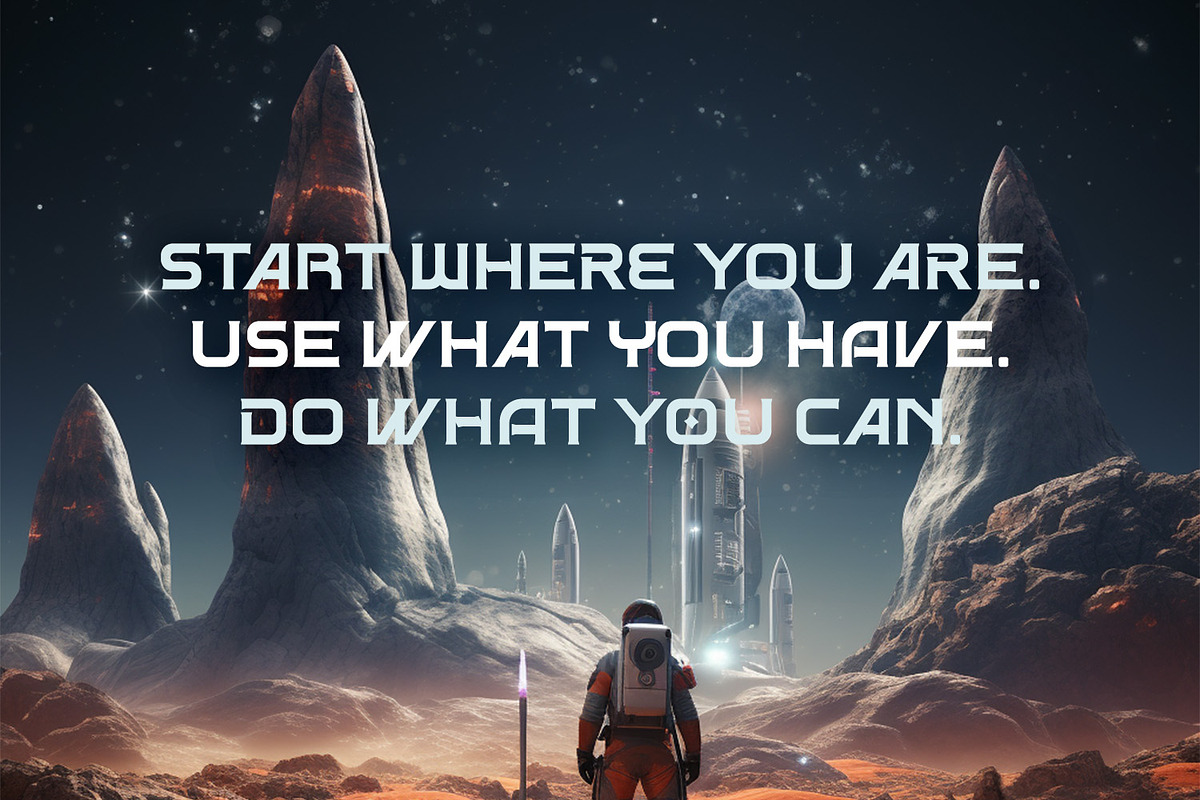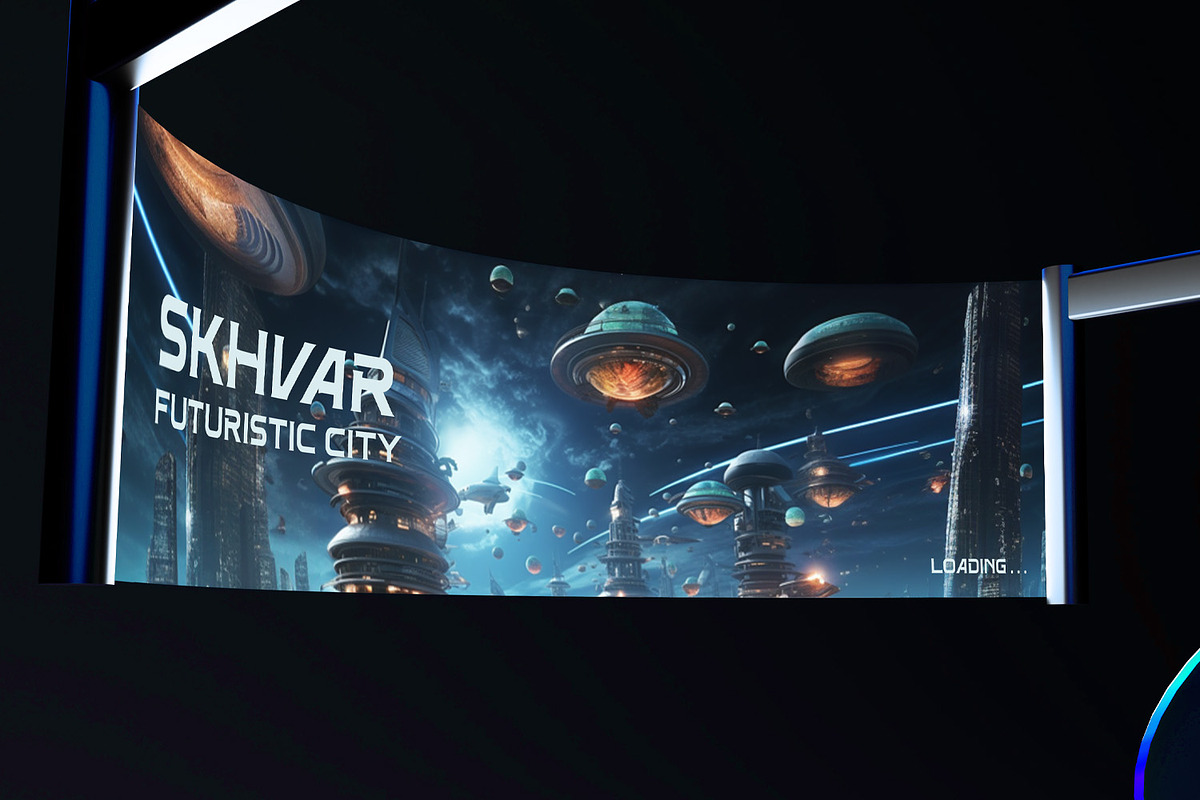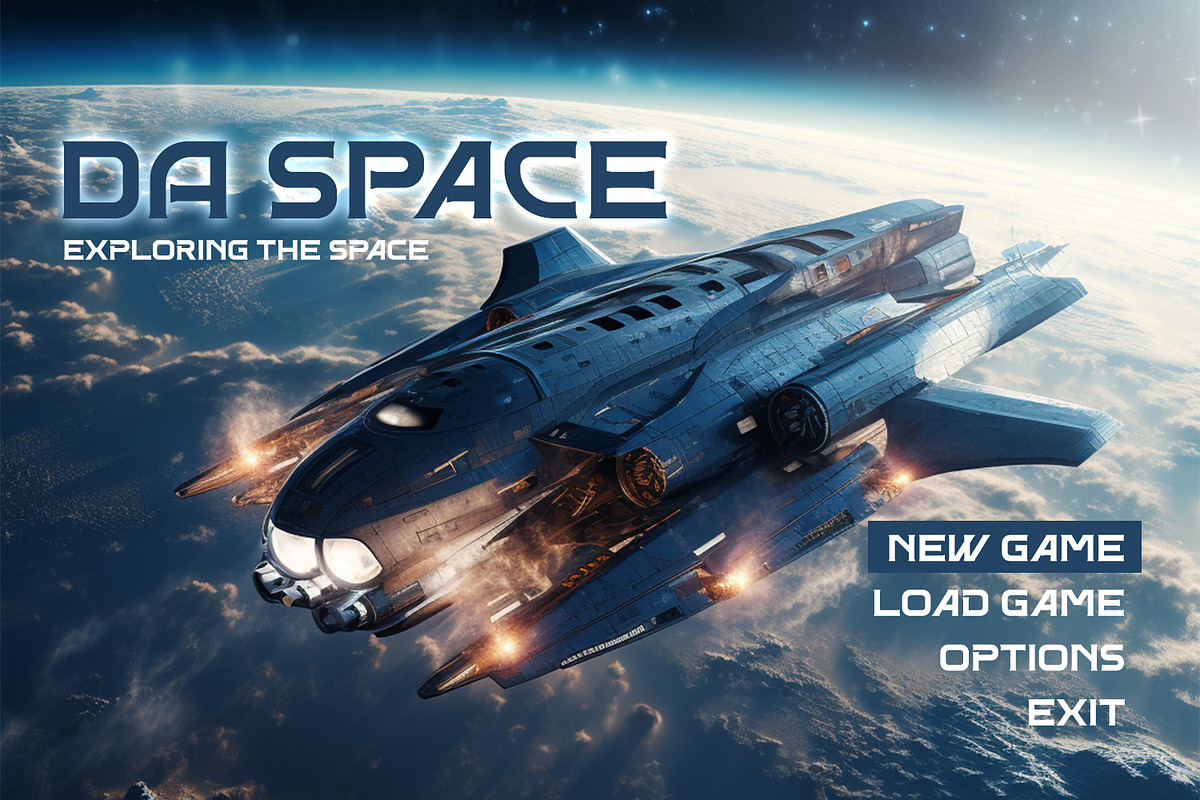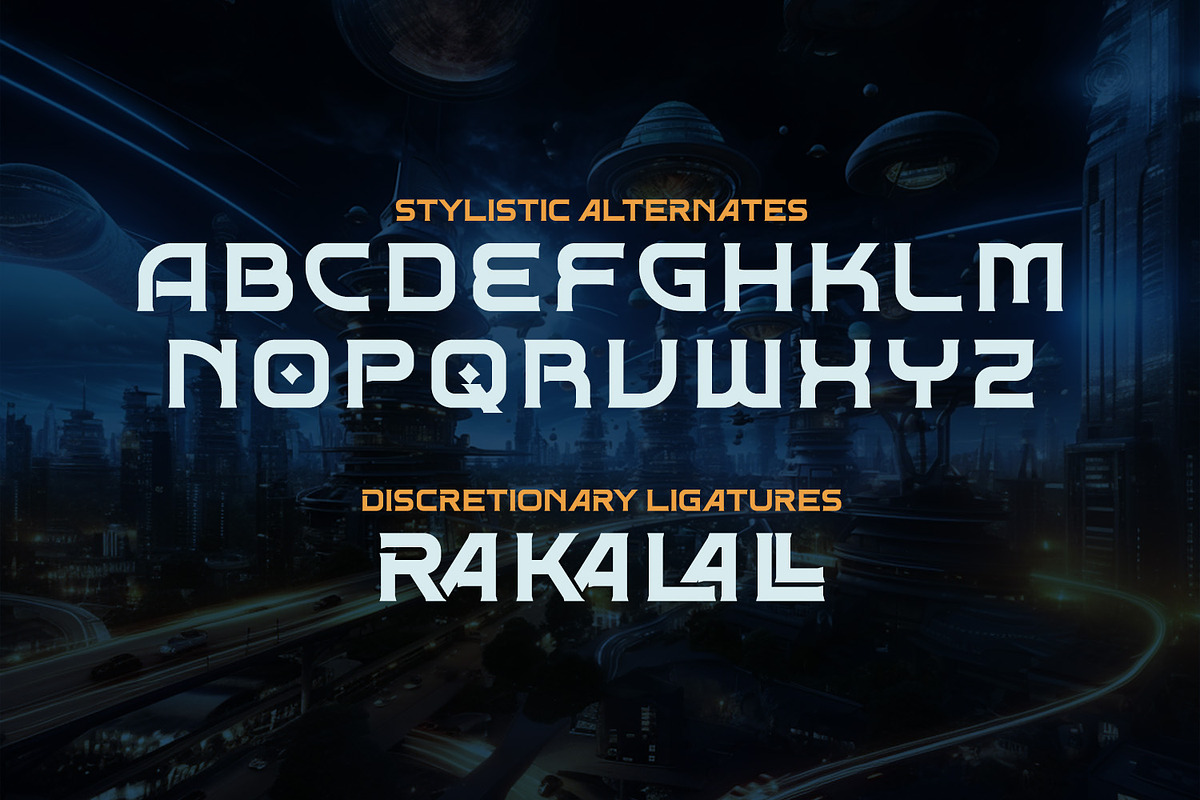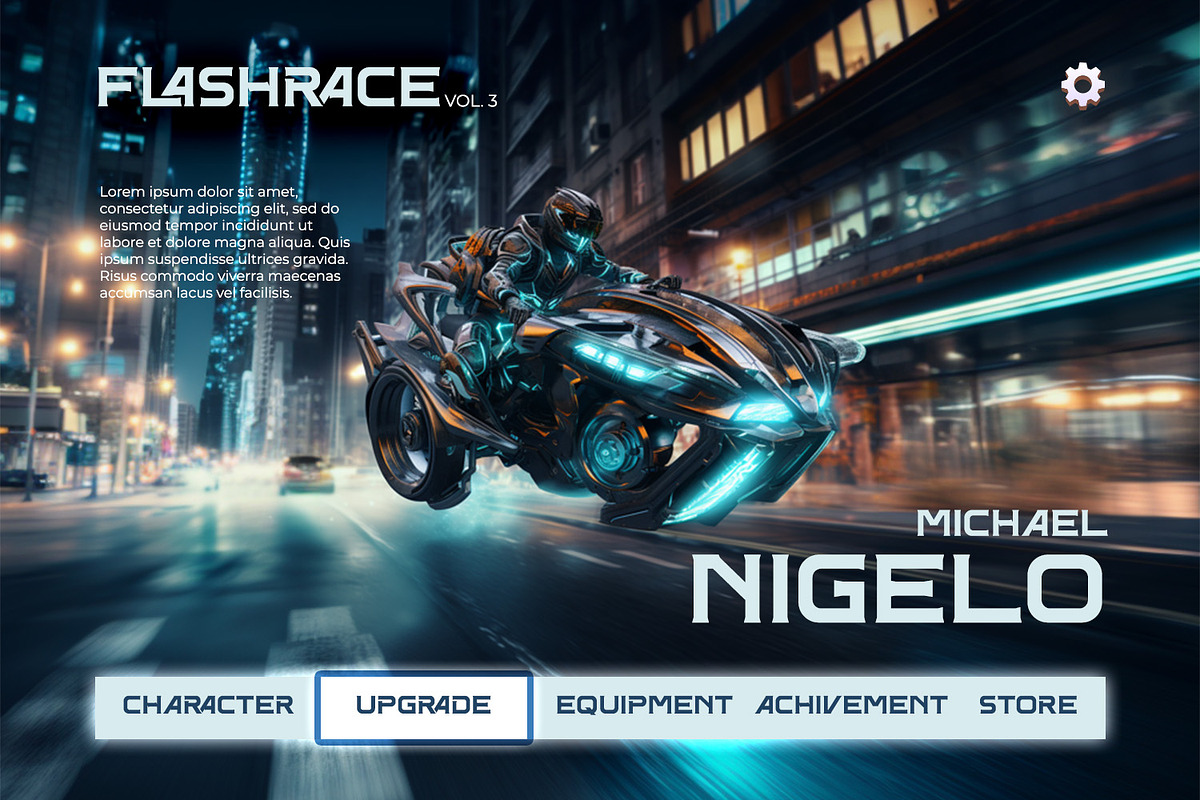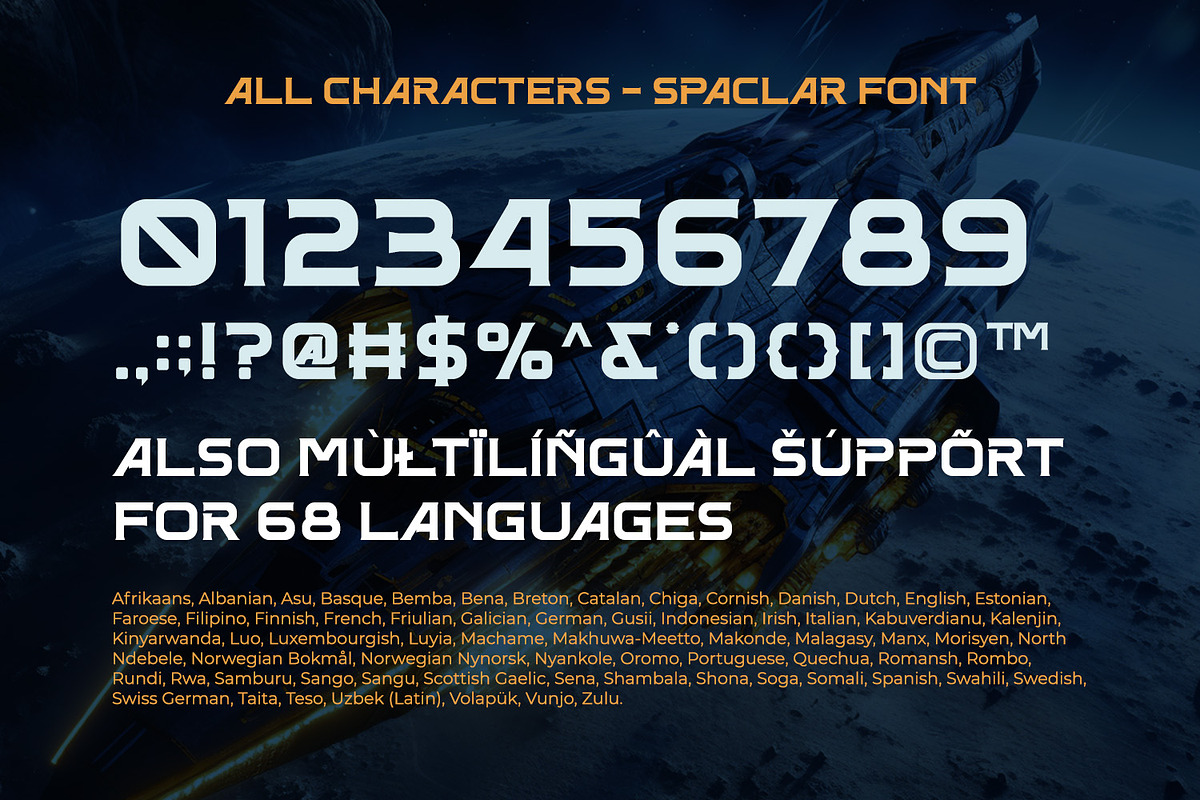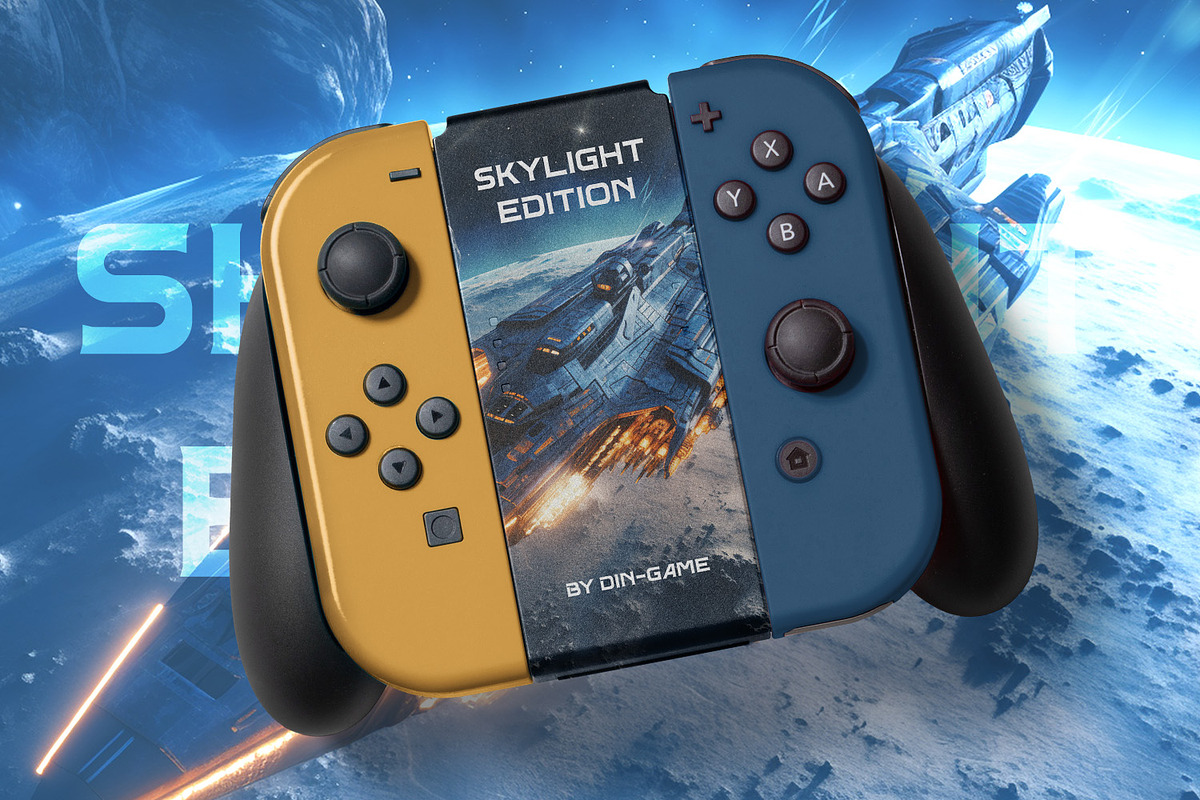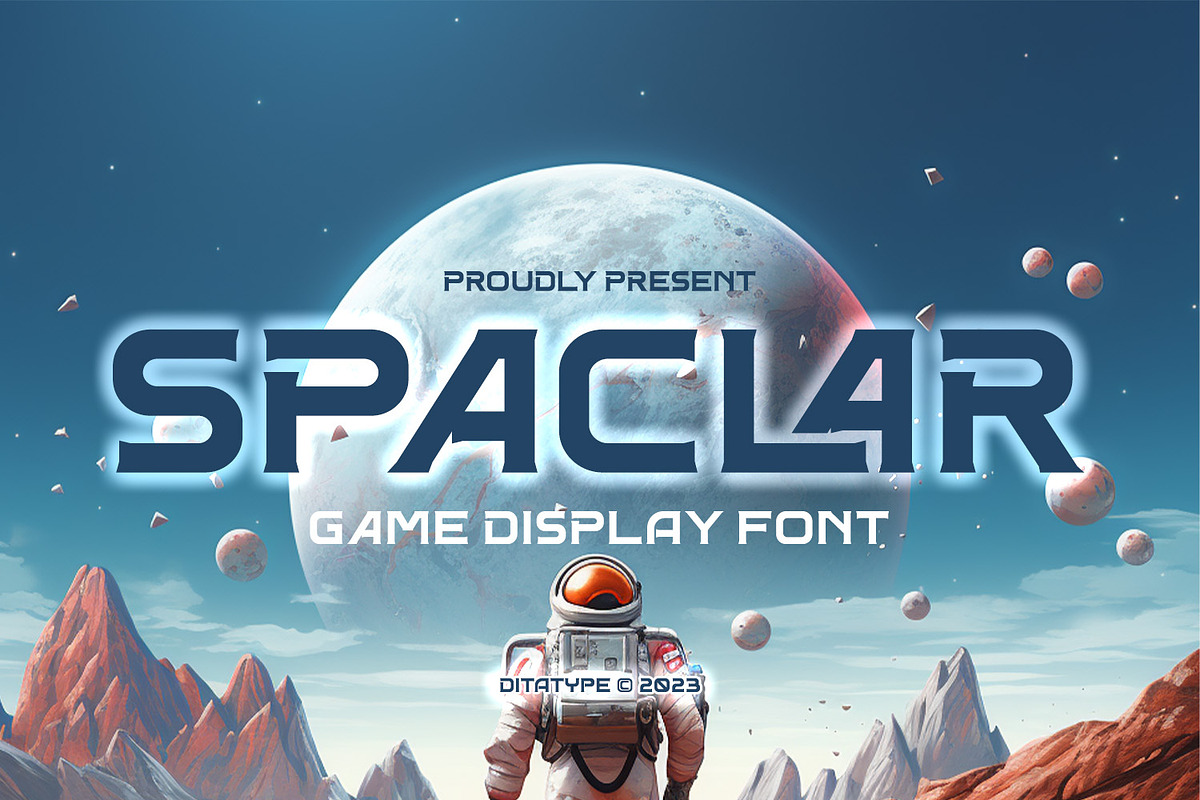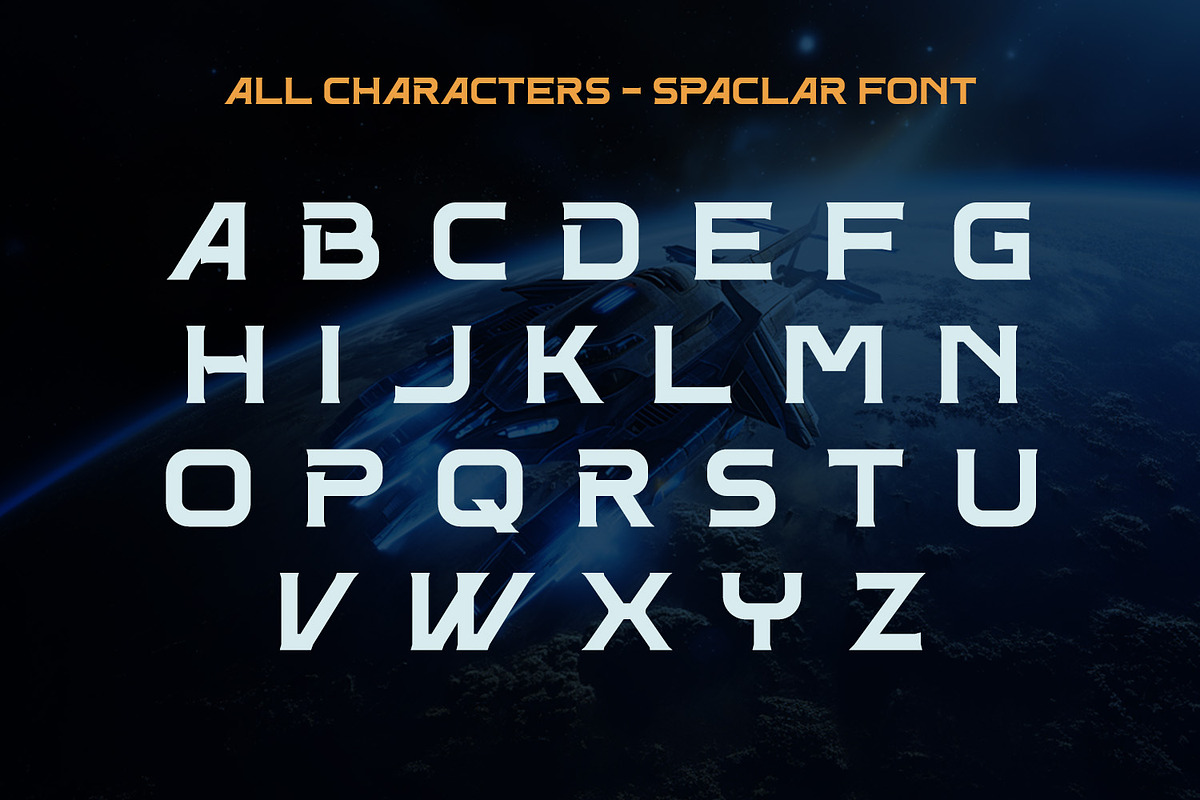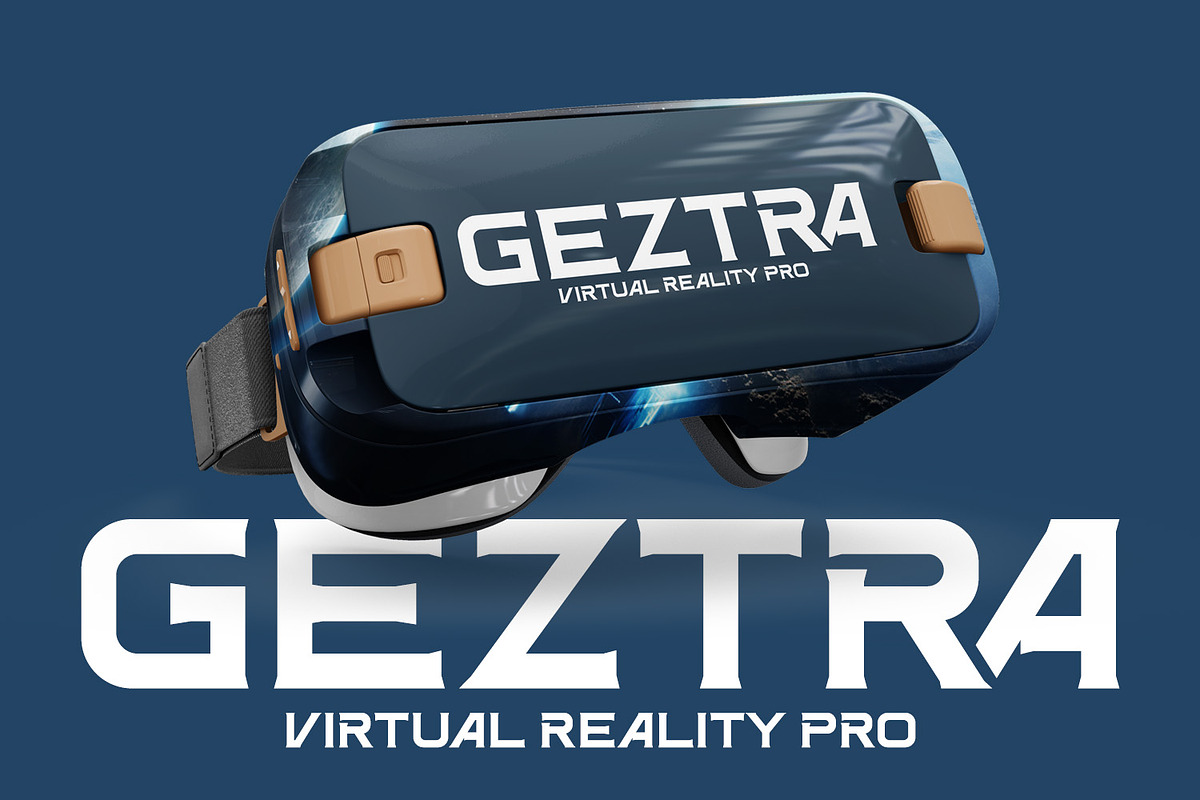
Spaclar
Spaclar is a captivating display font with a game-themed design, featuring uppercase letters with consistent proportions and rectangular shapes with sharp corners. This font shows uppercase letters with uniform proportions, ensuring a clean and balanced visual experience. Each character maintains the same size and shape, resulting in a cohesive and harmonious composition. This design choice creates a sense of order and precision, reflecting the strategic nature of gaming. The rectangular shapes with sharp corners in Spaclar add a modern and futuristic touch to the font. The clean lines and defined angles exude a sense of sleekness and sophistication, reminiscent of advanced technology and sci-fi aesthetics. This unique feature adds an element of visual intrigue, making this font the perfect choice for game-related designs that embrace a cutting-edge atmosphere. For the best legibility you can use it in the bigger text. Enjoy the available features here.
Spaclar fits in headlines, logos, posters, titles, branding materials, print media, editorial layouts, website headers, and any other game-themed projects. Find out more ways to use this font by taking a look at the font preview.